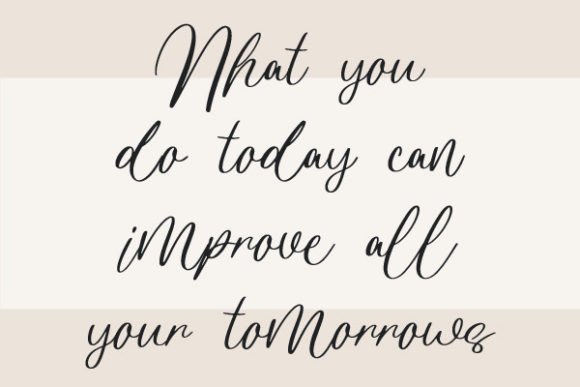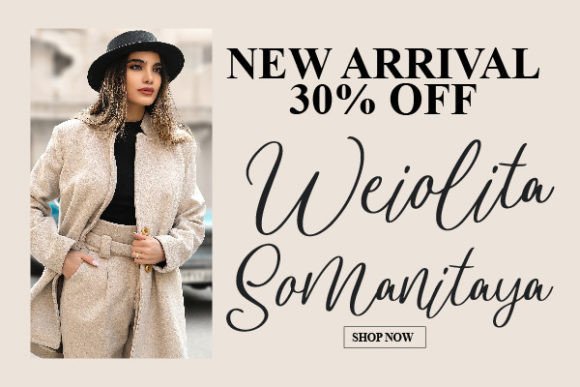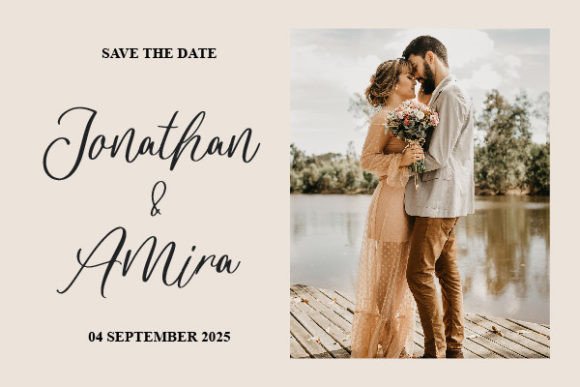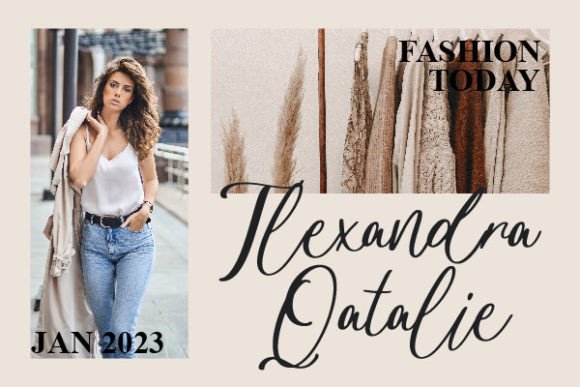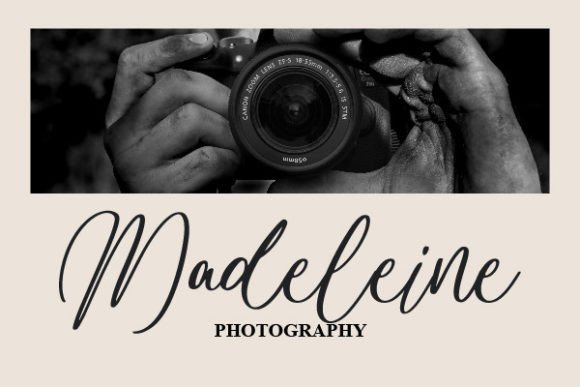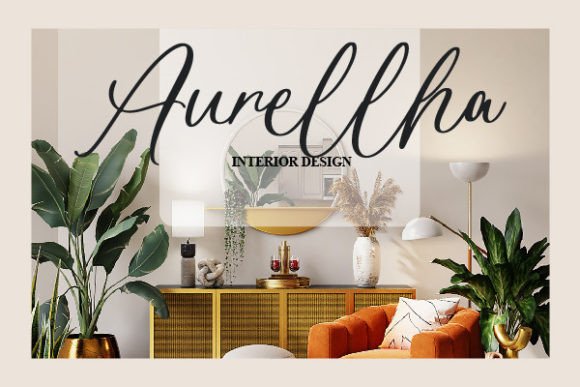
Introduction to Annabel Thomas Font
Annabel Thomas is an exquisite handwritten font, masterfully designed to become a true favorite.
Key Features of Annabel Thomas Font
Why Choose Annabel Thomas Font?
Annabel Thomas Font offers exceptional quality and versatility, making it a valuable addition to your design toolkit. Whether you’re creating for personal projects or commercial use, Annabel Thomas Font delivers professional results.